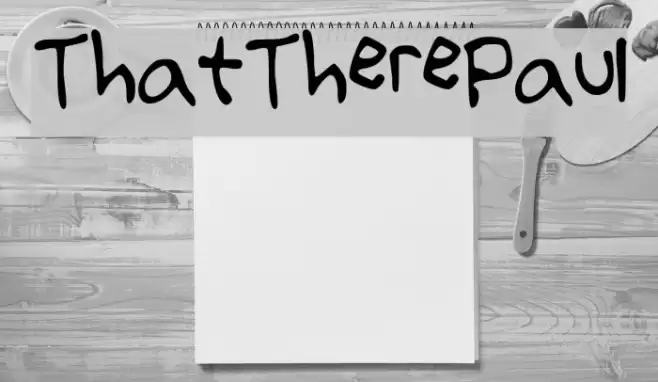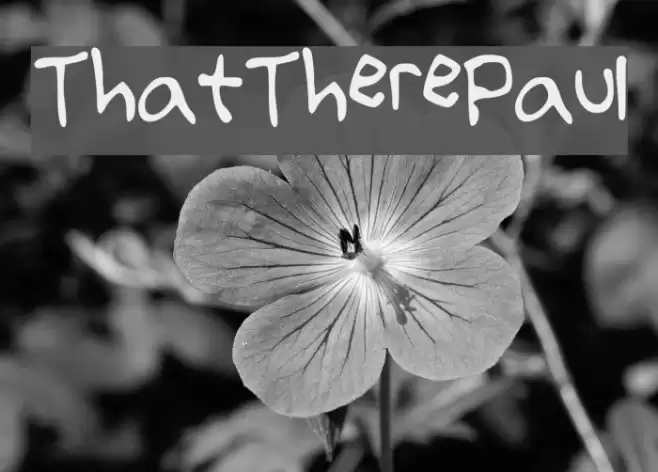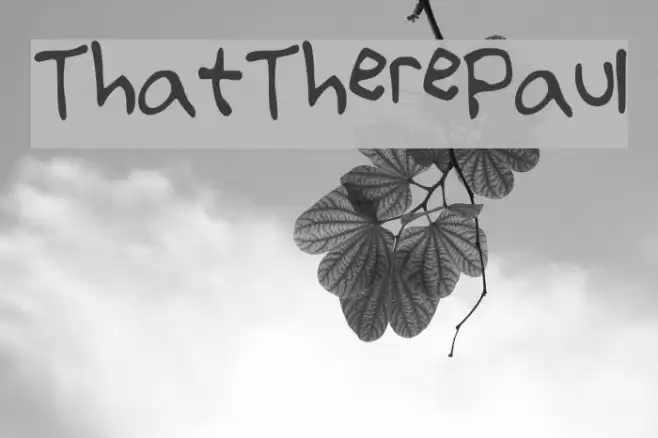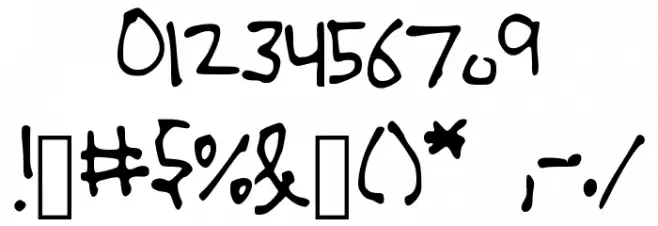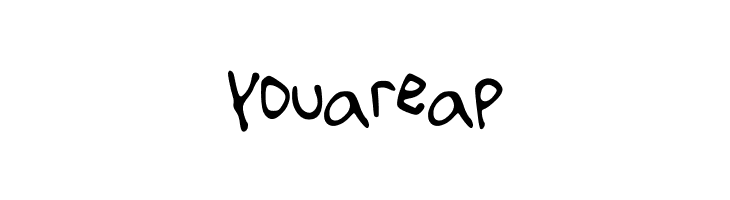
That_There_Paul Font
That_There_Paul Description
This font exudes a playful and informal vibe with its hand-drawn appearance. The characters are unevenly shaped, giving it a casual, almost childlike charm. The uppercase letters are bold and slightly irregular, while the lowercase letters maintain a consistent flow with a touch of whimsy. Numbers and special characters follow the same playful style, making them easily recognizable yet unique. The overall design is reminiscent of handwriting, which adds a personal touch to any project.
A playful, hand-drawn font with a casual and informal style from Handwritten fonts.
- Proposed Projects: This font is ideal for children's books, casual invitations, comic strips, and any project that requires a personal, informal touch.
- Overall Style: Casual, Playful
- Use Case: Headlines, Informal text, Creative projects